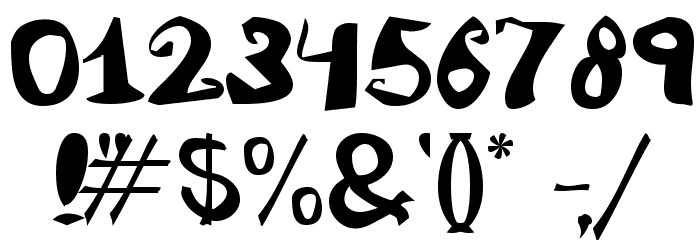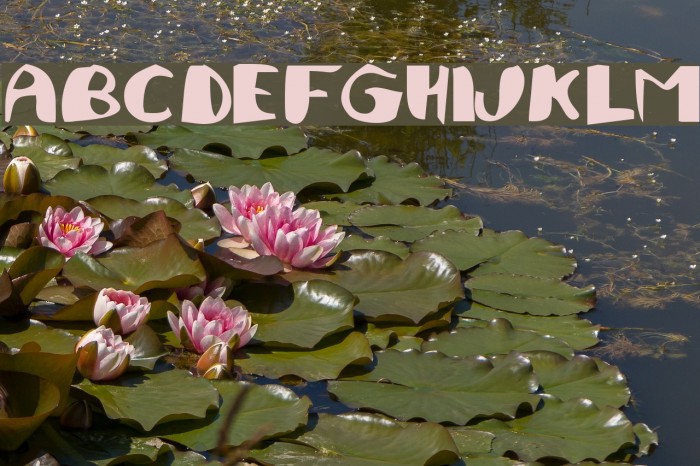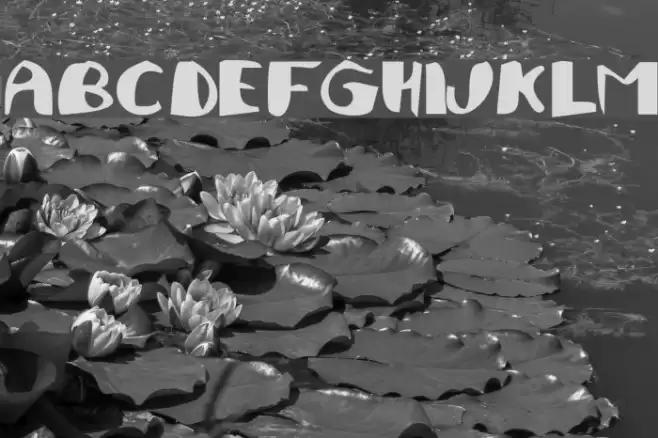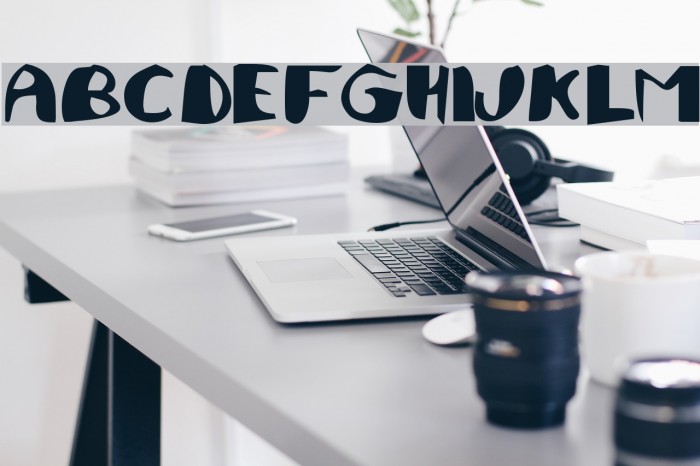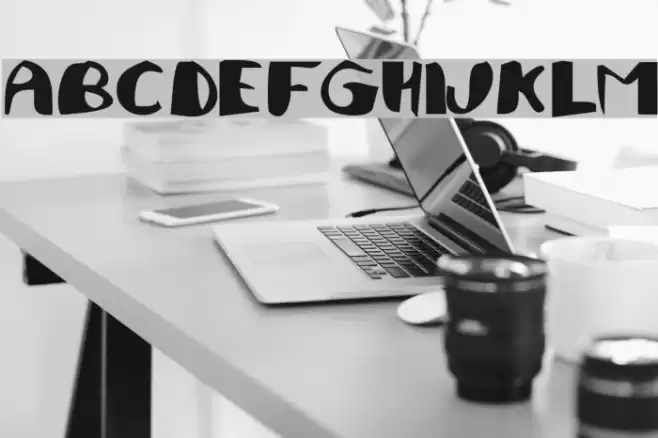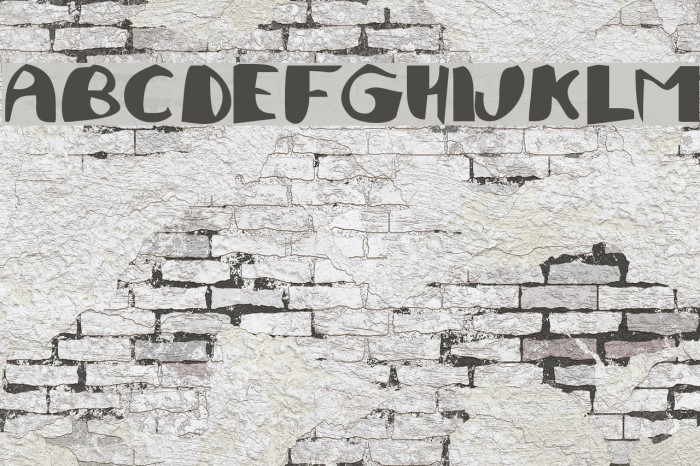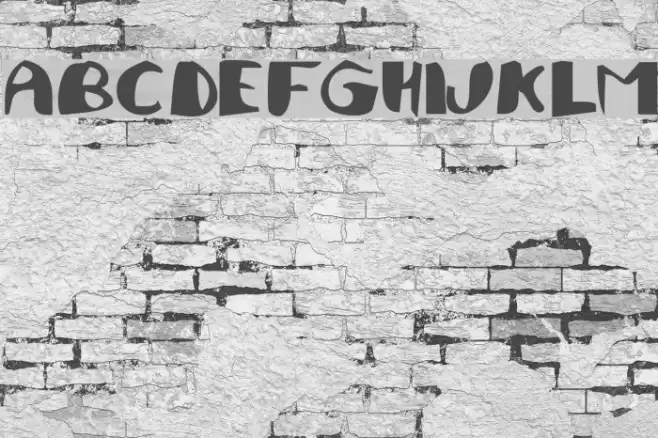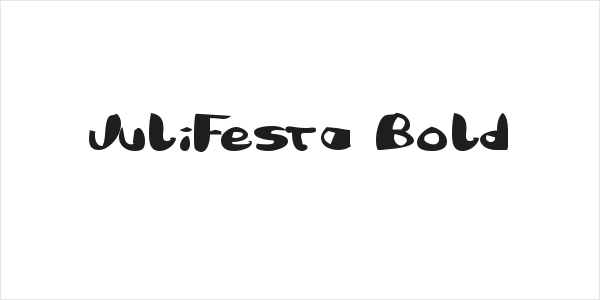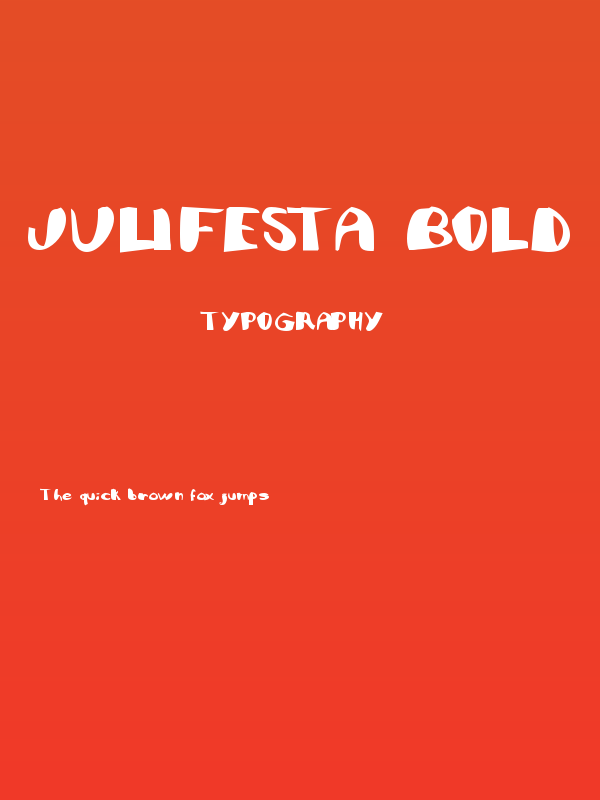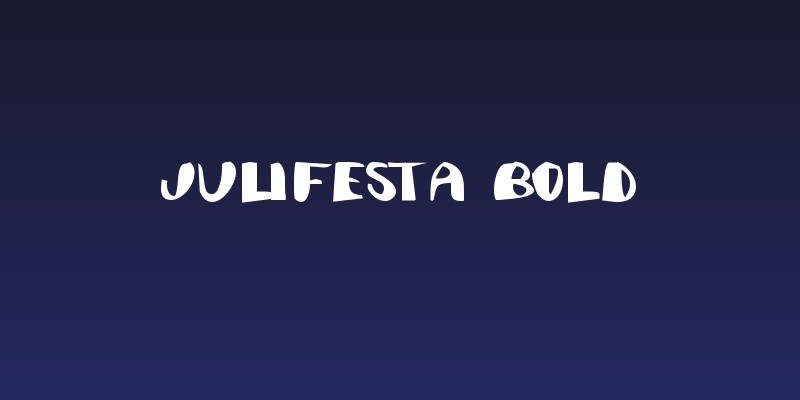
JuliFesta Bold Font
JuliFesta Bold Description
This font features a bold and playful design with a hand-drawn aesthetic. The characters are irregular and dynamic, giving a sense of movement and energy. The uppercase and lowercase letters are distinct, with exaggerated curves and varying stroke widths that add to its whimsical nature. The numbers and special characters maintain the same lively style, making them suitable for creative and informal projects. The overall appearance is eye-catching and suitable for designs that require a fun and engaging look.
| Proposed Projects | Ideal for children's books, party invitations, playful branding, and creative posters. |